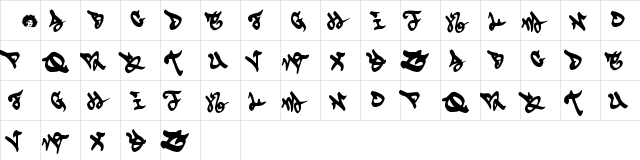
Eskis1 Regular
Design Context for Eskis1 Typeface
Eskis1 is a composed and adaptable typeface that performs quietly and consistently across a wide range of design contexts.